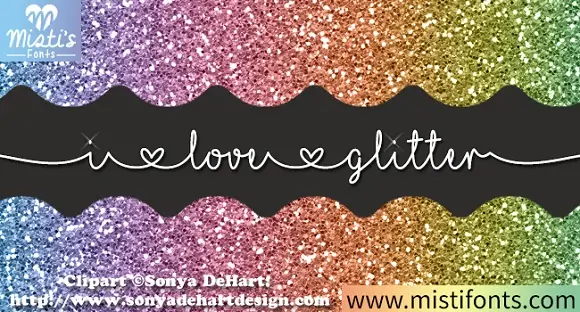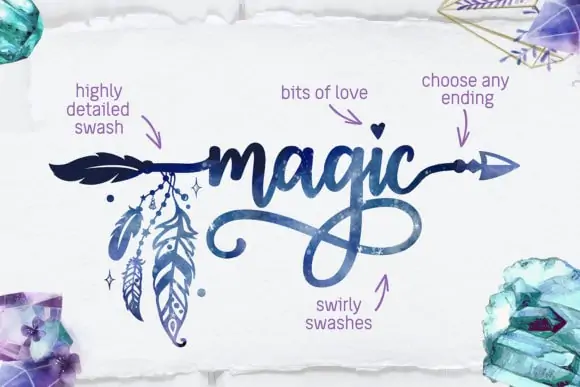
Are you looking for the best Cricut fonts with tails? You’ll love these stunning fonts with tails that will take your Cricut crafts to the next level!
Using a font with tails for making crafts has repeatedly proven to make my crafts unique. But finding the perfect font for your project can be challenging.
Since I am obsessed with fonts with tails, I have a list of fonts that I always return to. Today, I am so excited to share this list with you!
From cursive Cricut fonts with tails to fonts with hearts, I’ve got you covered.
Whether you are an experienced DIY designer or a beginner crafter, I am sure you will be obsessing over more than one font by the end of this list!
Create personalized crafts and gifts with this beautiful font featuring graceful tails.
Best Cricut Fonts With Tails
1. Hello Honey
Best Cricut Font With Tails Overall
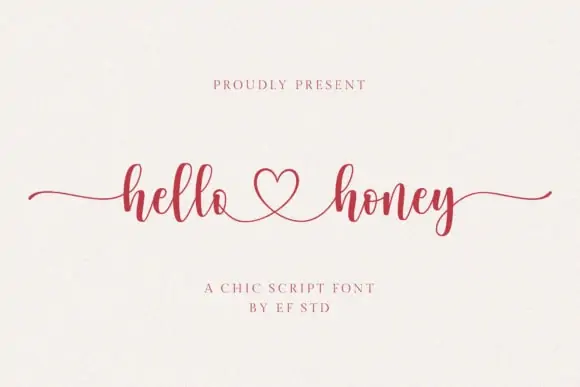
The Hello Honey is a sweet font with tails that will make your crafts stunning. Easily add connecting hearts and elegant tails to your designs with this gorgeous font.
This font is perfect for making home decor crafts like farmhouse-style wood signs. You can also create one-of-a-kind wedding and holiday gifts with the font.
2. Dahlia
Most Popular Font with Tails
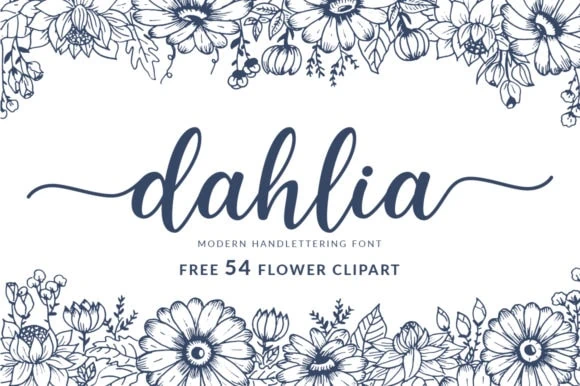
Dahlia is a versatile font that’ll add a beautiful handwritten touch to your projects. Its playful letters and gorgeous swashes make it the most popular choice among crafters and creators.
Additionally, with the bonus flower clipart featuring frames and banners, Dahlia lets you personalize your designs perfectly. Whether it’s for stylish Cricut shirts, elegant wedding invitations, or eye-catching signs, Dahlia is your perfect pick!
3. Whole Story
Best Font with Long Tails
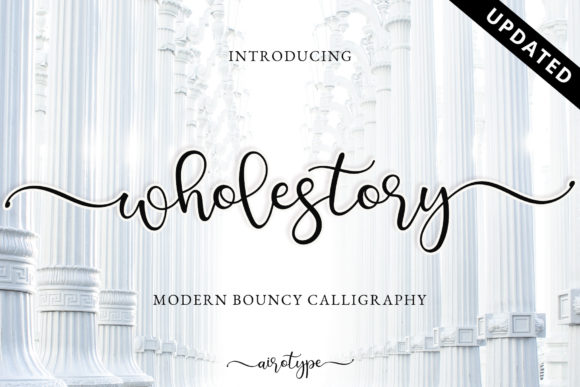
Whole Story, a bouncy calligraphy font with long tails, is your go-to for infusing designs with charm and elegance. Picture smooth letters dancing on a playful baseline, ready to transform with the font’s array of glyphs and alternates.
Its front and back swashes lend a fancy flair, making any project stand out. Be it welcome signs, dreamy wedding invitations, or anything else you imagine, Whole Story is here to elevate it.
4. Samantha Calligraphy
Best Cricut Font with Tails
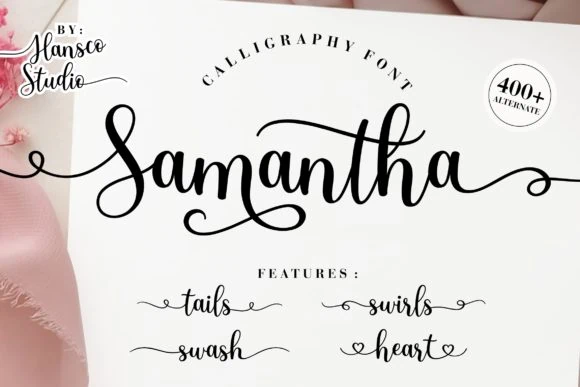
Samantha Calligraphy, a modern script font, is a Cricut crafter’s dream due to its incredible customization ability. This font comes alive with tails, swirls, hearts, and swashes, offering endless possibilities for crafting one-of-a-kind designs.
What’s more, its letters are clean and smooth, a breeze for weeding. Ideal for Cricut enthusiasts, use Samantha Calligraphy to bring a touch of elegance to tumblers, cups, shirts, signs, and beyond.
5. Boston
Best Baseball Font with Tails
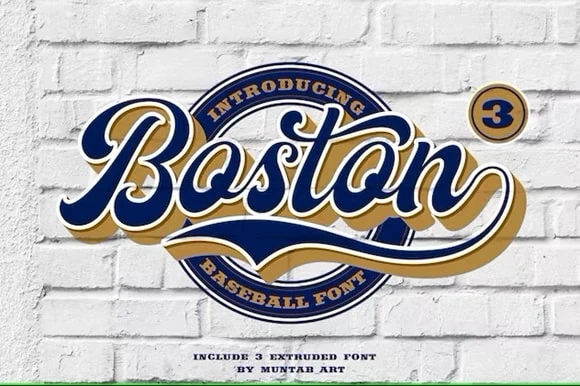
Boston is your go-to for crafting standout baseball designs with a bold, vintage flair. Available in regular and several extruded styles, this font allows you to layer and create eye-catching sports designs with ease.
Ideal for team jerseys radiating team spirit or customizing tumblers with a player’s name, Boston is versatile and ready for action. It’s the perfect partner for all your sporty, personalized projects!
6. Madelyn Heart
Best Font with Heart Tails
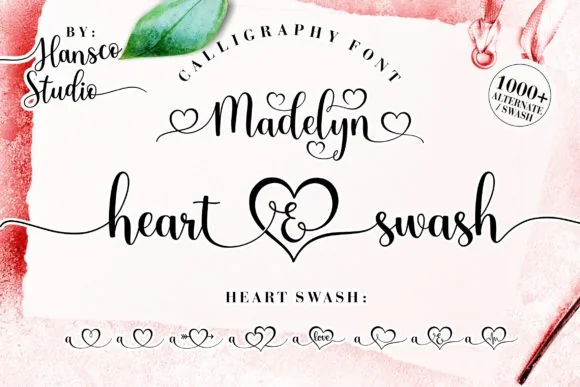
Madelyn Heart font, with its curly script and delightful heart swashes, is a dream for adding a romantic flair to your designs. This charming font is not only beautiful but also user-friendly, boasting glyphs that seamlessly integrate with favorite design programs like Cricut Design Space, Adobe Illustrator, and Procreate.
It’s a hit among designers and crafters for crafting stunning logos, branding, and wedding-related projects. Moreover, Madelyn Heart effortlessly brings a touch of love and elegance to every creation.
7. Welcome Script
Best Font for Weddings
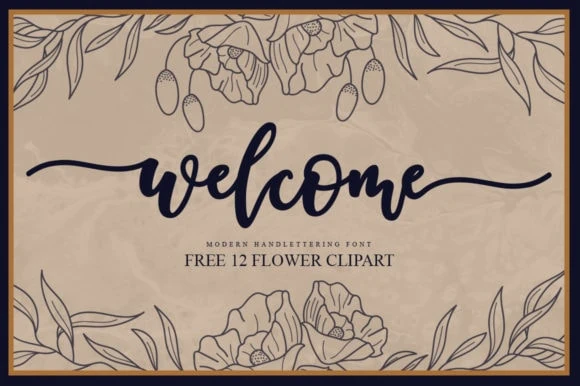
Welcome Script is the ultimate font for all things wedding. This enchanting handwritten font showcases smooth, bold letters that gracefully dance along the baseline, adding a personal touch to your designs.
Its elegant swashes are ideal for crafting sophisticated wedding signs, enchanting invitations, and memorable gifts. And there’s more – the bonus flower clipart is just what you need to give your designs a distinctive, customized flourish. Make every detail of your wedding special with the Welcome Script font!
16. Octavia
Best Fancy Calligraphy Font With Swashes
Octavia is a modern calligraphy script font with elegant tails. Many alternates are available for tails, making Octavia a super fun font to work with.
You can add a feminine touch to any DIY project with Octavia font. This font works like a charm for making unique gifts ranging from weddings to holidays.
Pick your favorite font to add a unique touch to your designs or crafts!